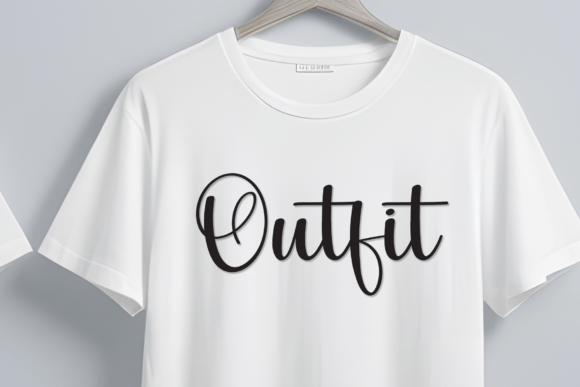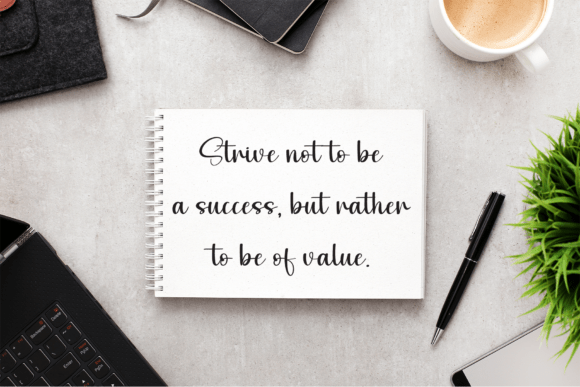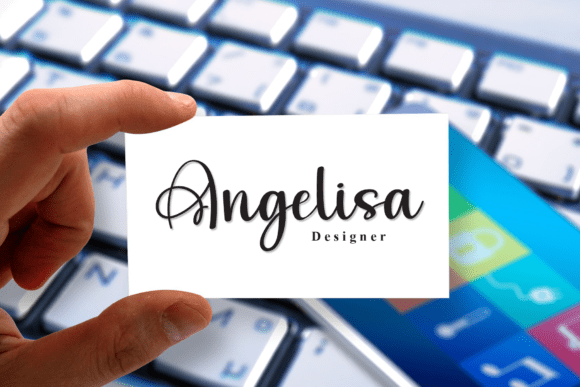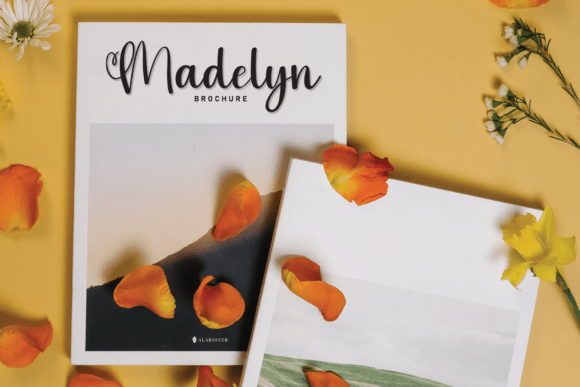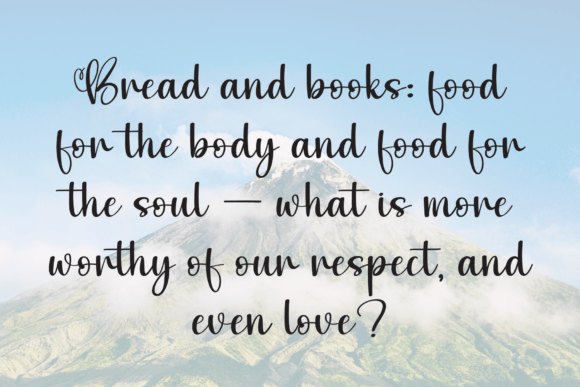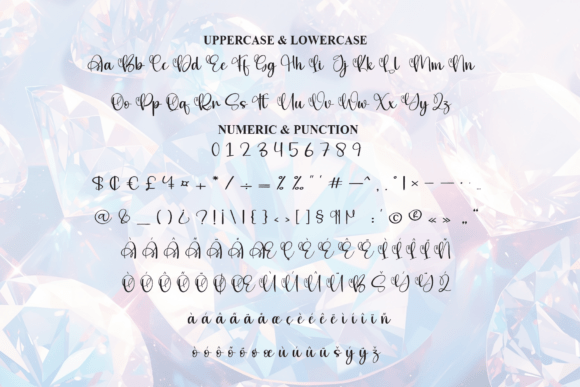
Introduction to Rhineston Font
Rhineston is a sophisticated and fluid script font that captures a graceful, hand-sculpted personality.
This luxury handwritten font is defined by a rhythmic visual flow characterized by thick downstrokes paired with fine connectors and smooth joins The structure utilizes soaring ascenders and long, sweeping terminal swashes to create a sense of customized artistry that feels high-end and personal.